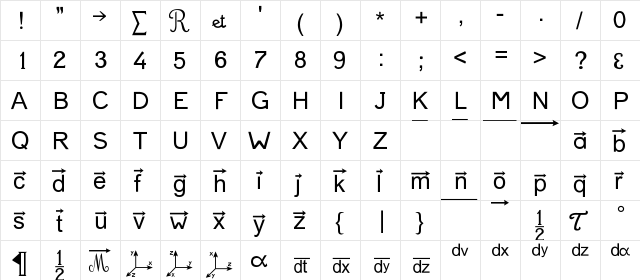
Vecteur Regular
| Designer | Fran篩s RIMBERT |
Design Context for Vecteur Typeface
Vecteur takes a measured approach to typography — its balanced proportions and neutral character make it a reliable workhorse for both digital and print work.